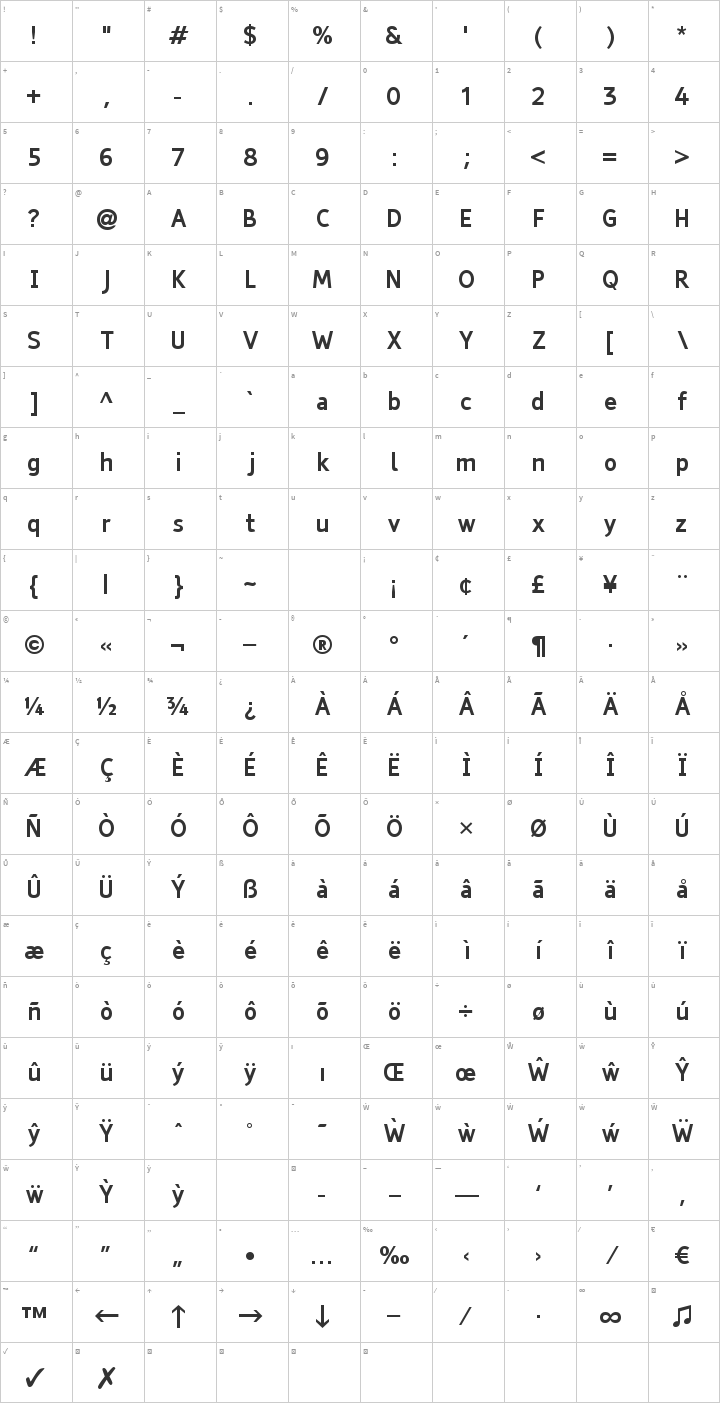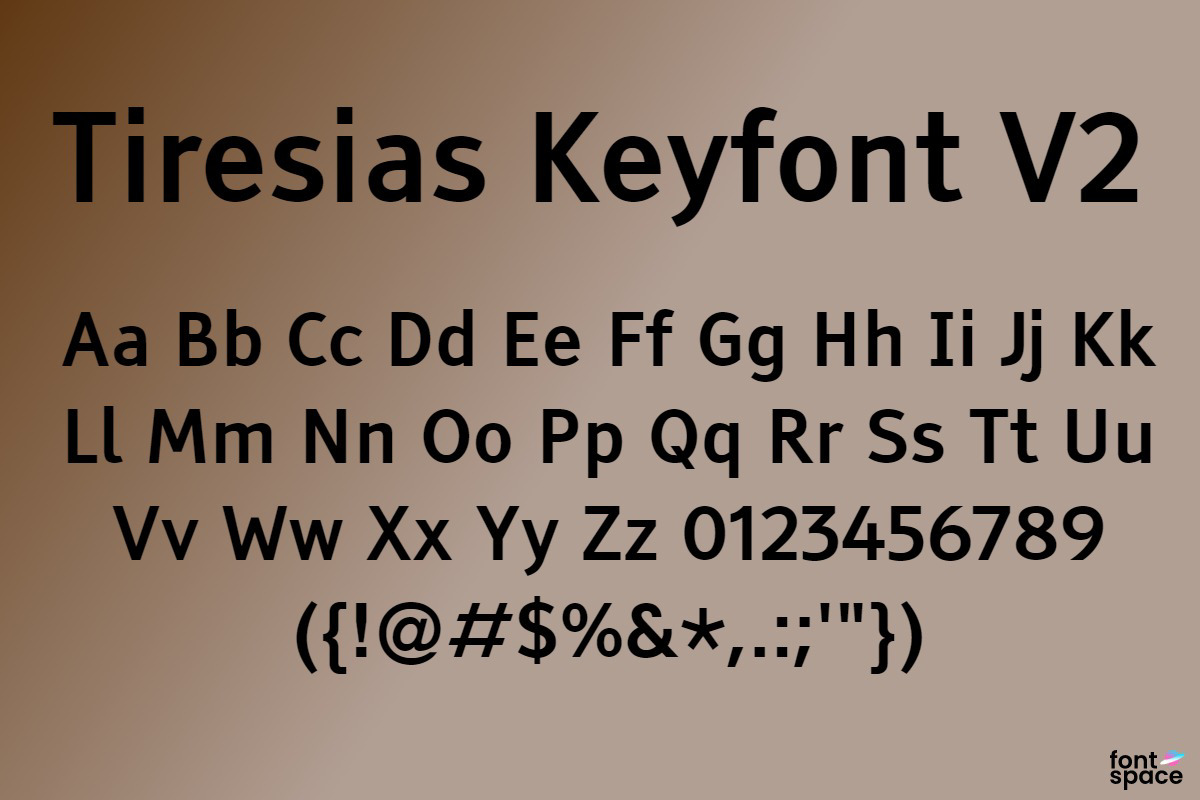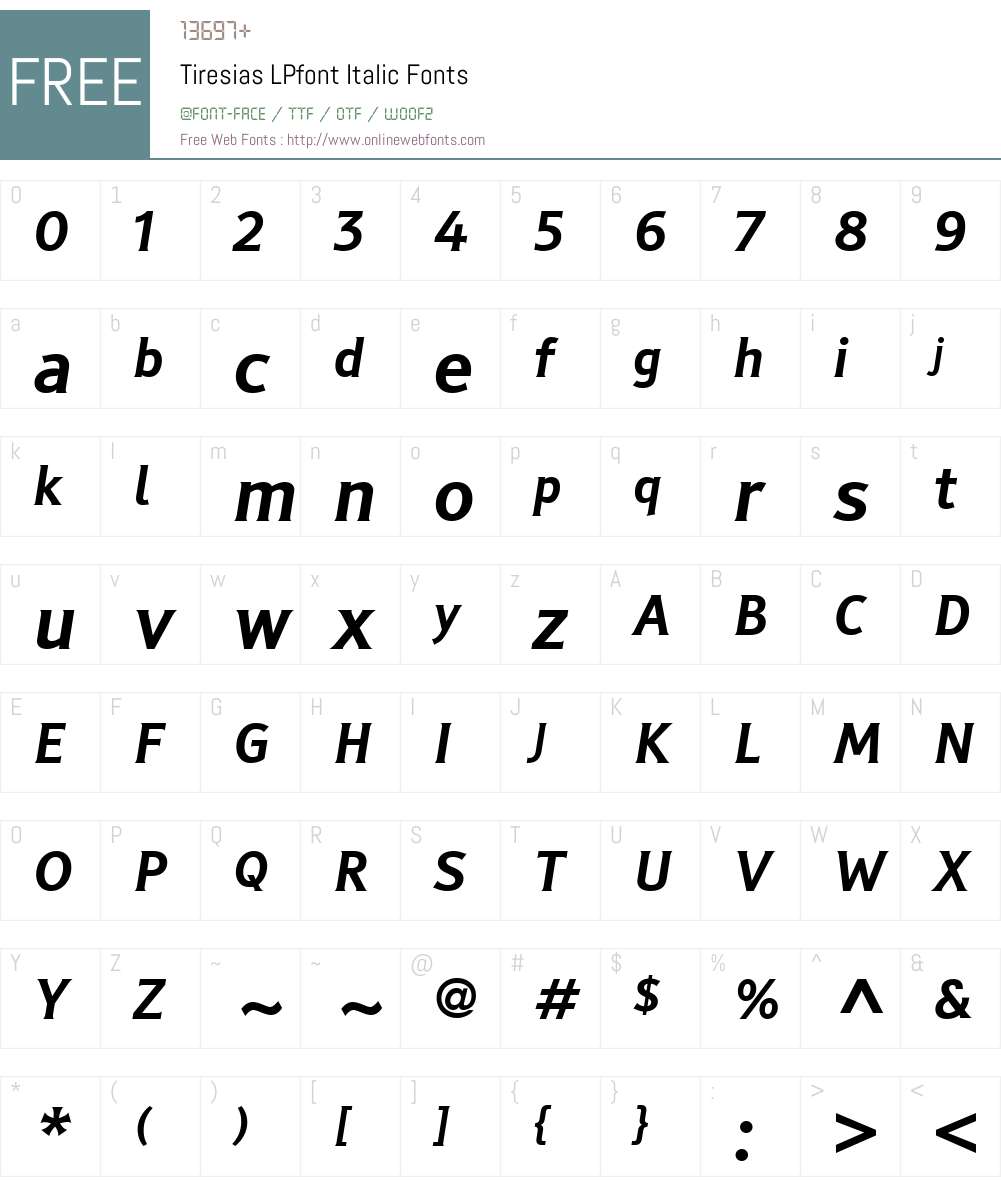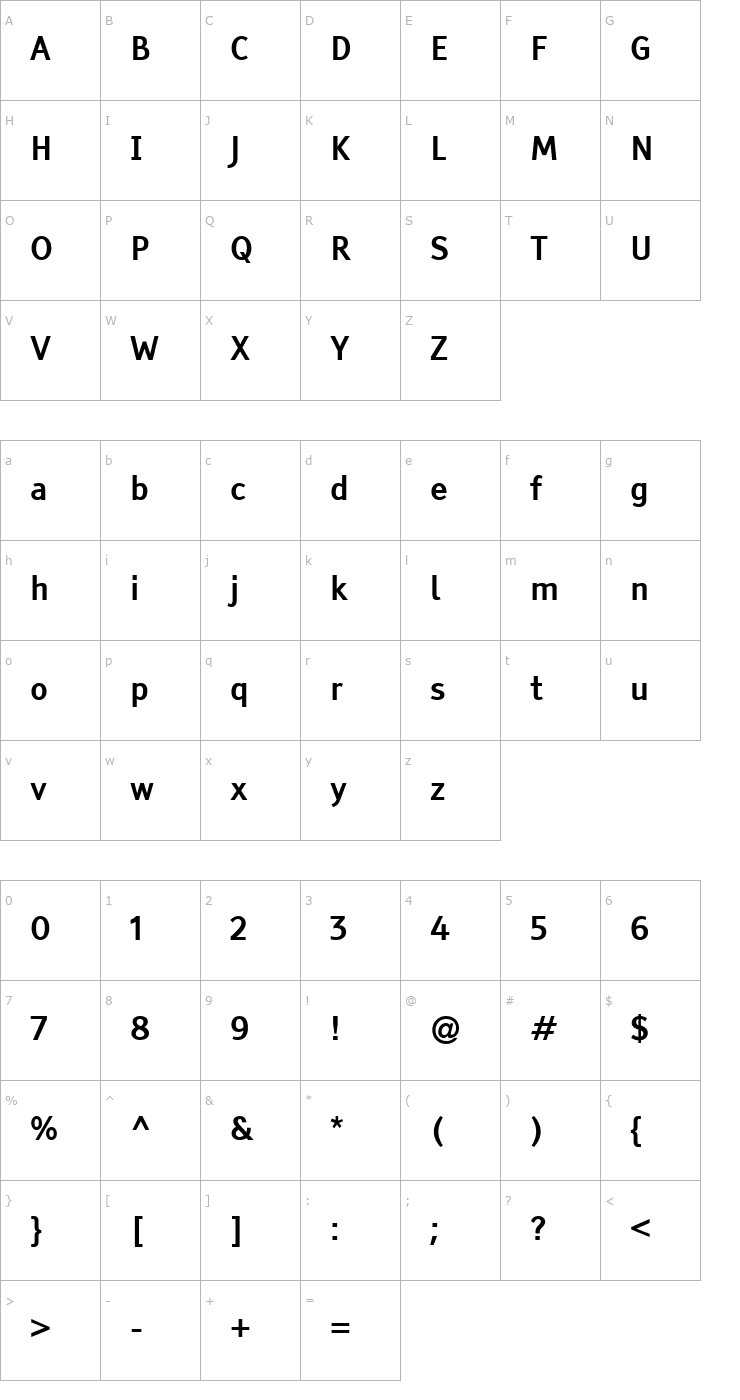
Tiresias Font History . A typeface created to help partially sighted tv viewers read subtitles has. Here’s what you need to know about tiresias, the claimed magic bullet for every kind of caption or. What they aren’t telling you about tiresias. On 2001.11.19, we conducted a phone interview with john gill, chief scientist of the royal national institute for the blind, on the topic of the. Been chosen as the standard for digital tv in britain.
On 2001.11.19, we conducted a phone interview with john gill, chief scientist of the royal national institute for the blind, on the topic of the. Been chosen as the standard for digital tv in britain. What they aren’t telling you about tiresias. Here’s what you need to know about tiresias, the claimed magic bullet for every kind of caption or. A typeface created to help partially sighted tv viewers read subtitles has.